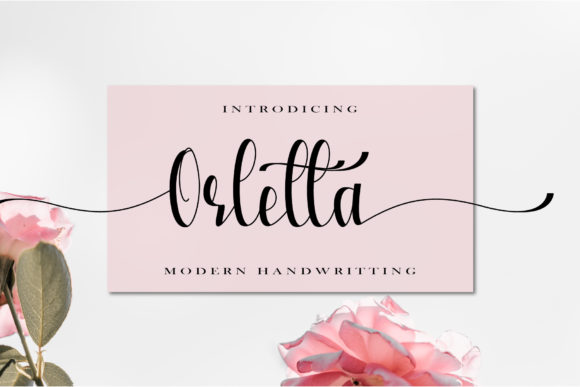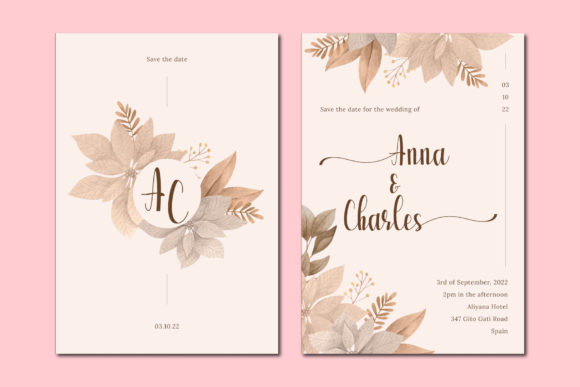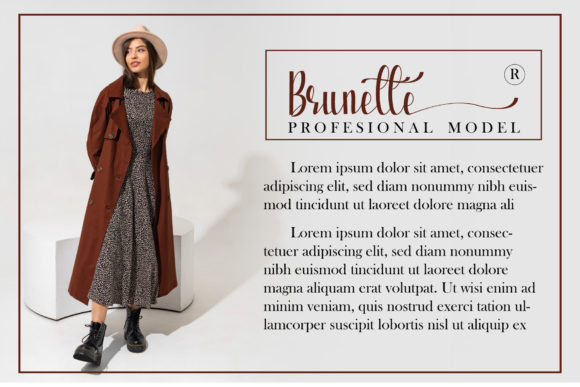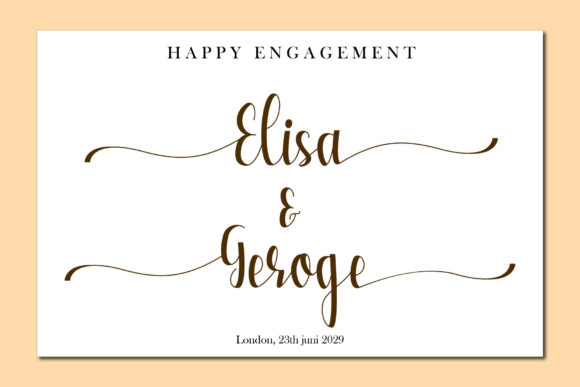
Orletta Font
Orletta Script is a captivating and free-flowing script font meticulously crafted for an array of design needs. This versatile typeface is the perfect choice for packaging products, creating elegant invitation cards, designing eye-catching flyers, producing stunning mockups, and crafting captivating event posters.
The font boasts a beautiful and balanced character, lending a touch of sophistication to any project it graces. Its fluid strokes and graceful curves create a harmonious rhythm, making it a standout choice in a diverse range of design contexts. The free-flowing nature of Orletta Script adds an element of dynamic elegance, ensuring that your designs exude a high-quality vibe.
Whether you’re working on a product packaging design or creating promotional materials for an event, Orletta Script effortlessly adapts to your vision. Its large design pool allows for creative flexibility, making it a valuable asset for designers seeking a font that seamlessly blends beauty and functionality.
In summary, Orletta Script is more than just a font; it’s a versatile and captivating typeface ready to elevate your design projects with its free-flowing grace and high-quality aesthetic.